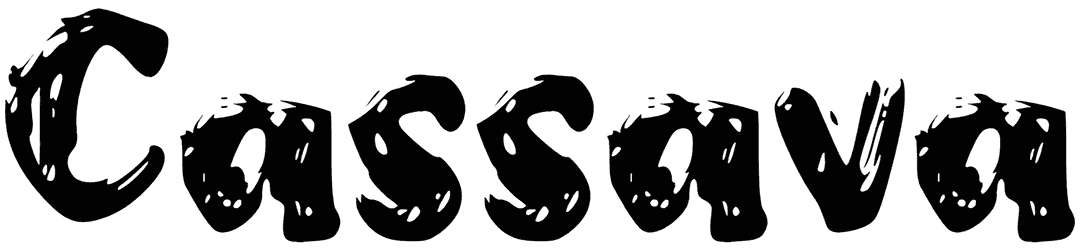
c Cassava Font
If you dig a punk and edgy look, today’s font is the perfect thing for you! c Cassava has bold and painted-like characters and an eroded look to give off a powerful vibe to your readers and put excitement in your words.
You can use it for war movies, books, plays, event flyers and banners, gaming titles, and informal headlines. This mountain font only has an extra faded look to help with the intimidation.